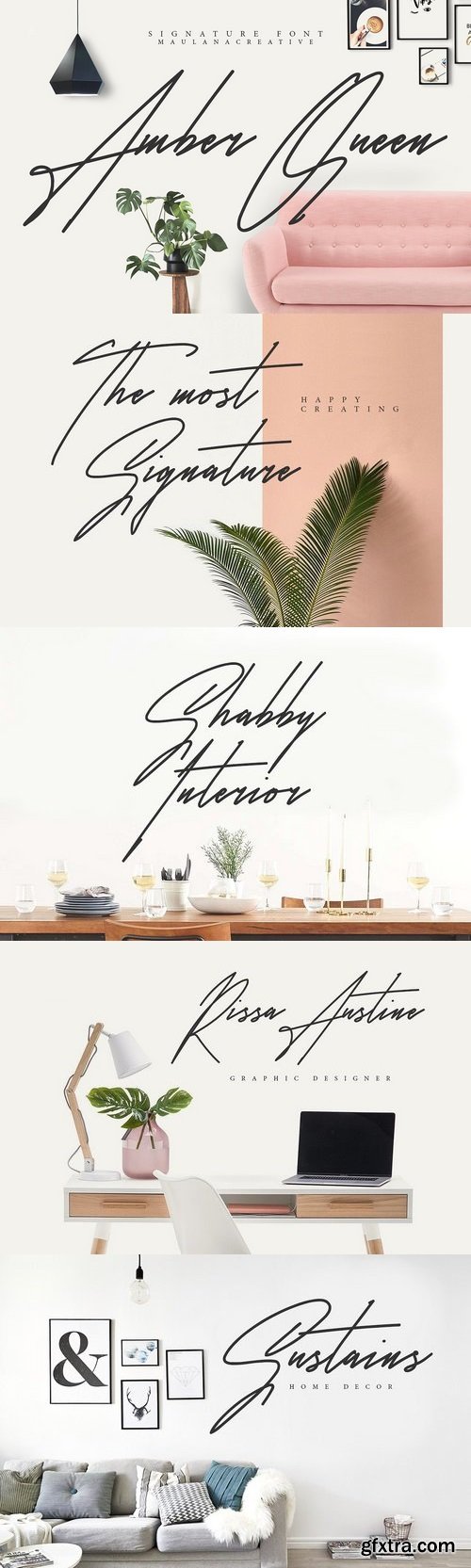
Give your designs an authentic handcrafted feel. "Amber Queen" is perfectly suited to signature, stationery, logo, typography quotes, magazine or book cover, website header, clothing, branding, packaging design and more. License: This font included for personal, commercial use, multiple projects, behalf of a client. Fonts may be printed on to products that are subsequently sold, websites and within website design. Graphics may be printed on to products that are subsequently sold when an effort is made to use them as part of a new design including a variation of other graphics or fonts. This font available on OTF & TTF Web Font Include (New Update) Thanks for use this font ~ Maulana